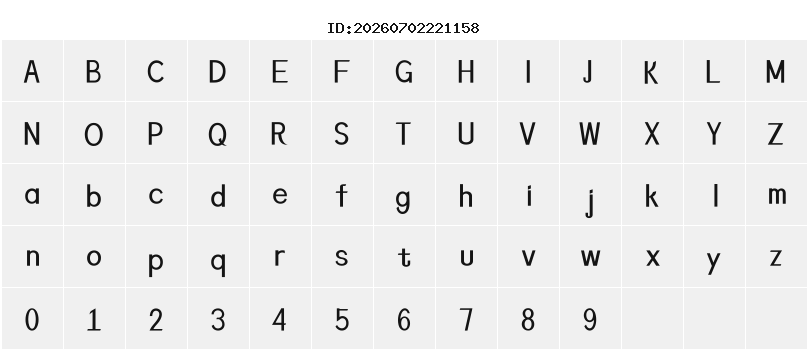
202-上首雅倩体 Preview
• Font Name: 202-上首雅倩体
• Font ID: 202-SSYaQianti:Version 4.00
• Full Font Name: 202-上首雅倩体
• Version: Version 4.00 December 3, 2022
• PostScript Name: 202-SSYaQianti
• Character Count: 7567
• Manufacturer: 上首造字
About 202-上首雅倩体.ttf
202-上首雅倩体.ttf is a modern, elegant sans-serif font designed for ultimate readability and visual harmony. Perfect for branding, headlines, web design, and print materials.